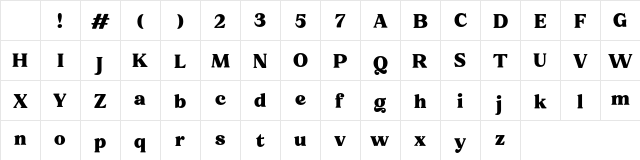
Complete Free - Notulen Serif Display XBd Regular glyph index. Displaying only characters natively supported by Free - Notulen Serif Display XBd Regular font.
Free - Notulen Serif Display XBd is built around its visual character rather than neutral utility - its distinctive forms are designed to make an impression at display sizes. Its bold stroke weight gives it real presence on the page.
Font Pairing: Pair with a clean neutral sans-serif for body copy to let Free - Notulen Serif Display XBd's character lead without overwhelming the composition.
Pro Tip: Use Free - Notulen Serif Display XBd exclusively at display sizes - it was designed to be seen, not read at length. Let a neutral companion handle body copy.